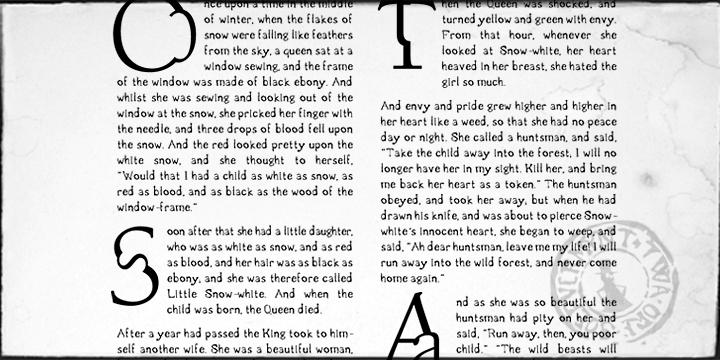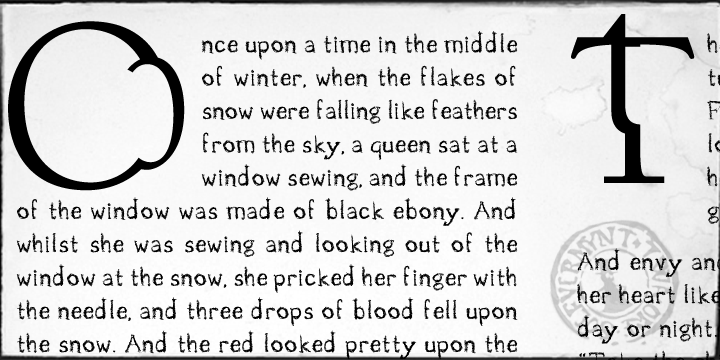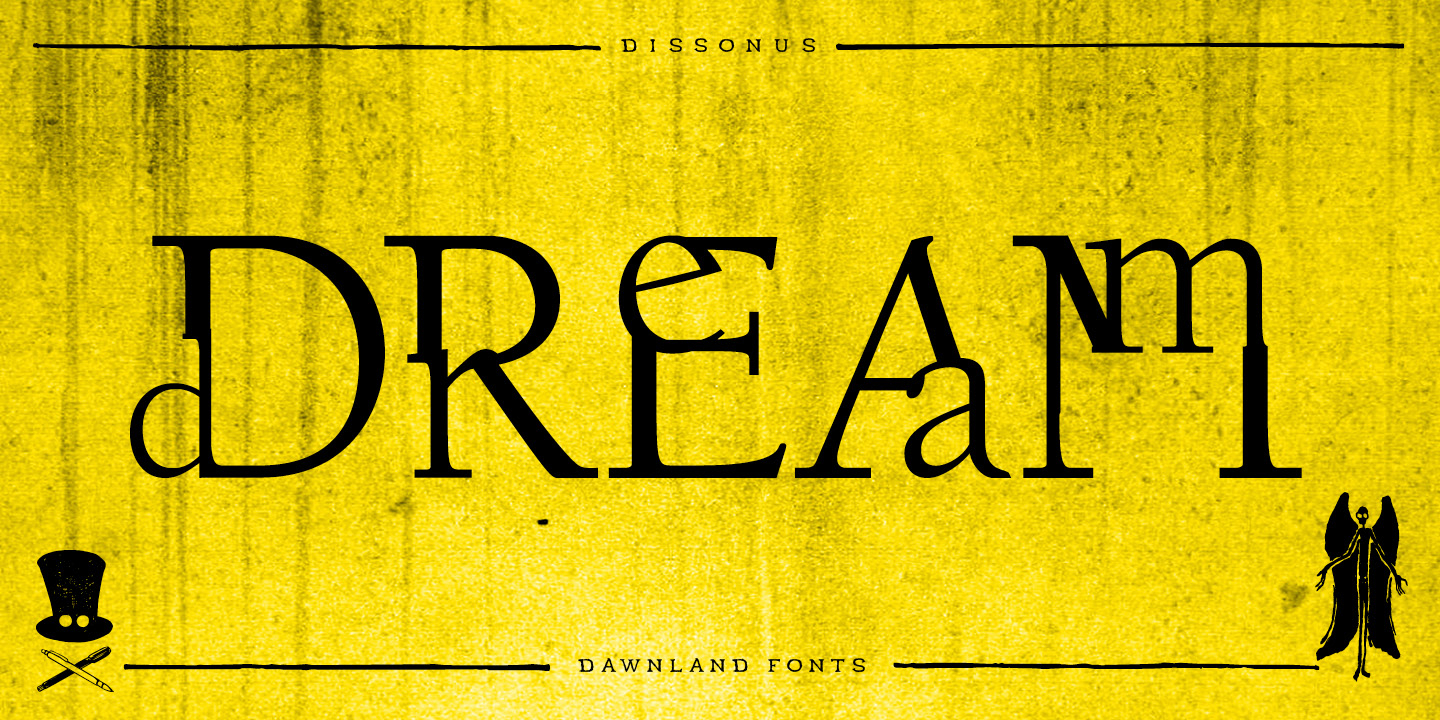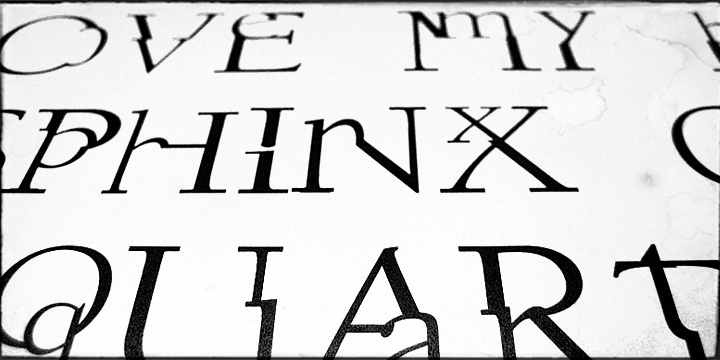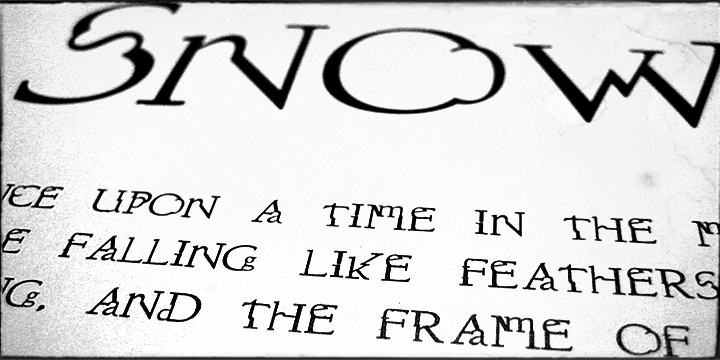
dissonusX is a novelty font published by Dawnland.
DisSonus X is ideal for:
Initial characters - give your text a unparalleled facelift!
Headlines - create a unique look for your posters, event graphics, book covers & music/media/game packaging.
Preamble - reanimate the introduction…
DisSonusX was revised 2012 and now hold a full character set of basic english/latin letters and west european diacritics!
Note that there are no digits in this font. Use a fitting antiqua such as Berkeley Book or (insert your favourite version here) Garamond.
This merged and distorted antiqua was inspired by the type treatments of Dave McKean as well as the Manson Anti Christ Superstar-artwork.